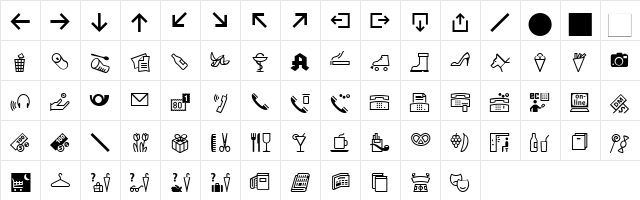
TransitPict-Three Medium
Design Context for TransitPict-Three Typeface
TransitPict-Three takes a measured approach to typography — its balanced proportions and neutral character make it a reliable workhorse for both digital and print work.